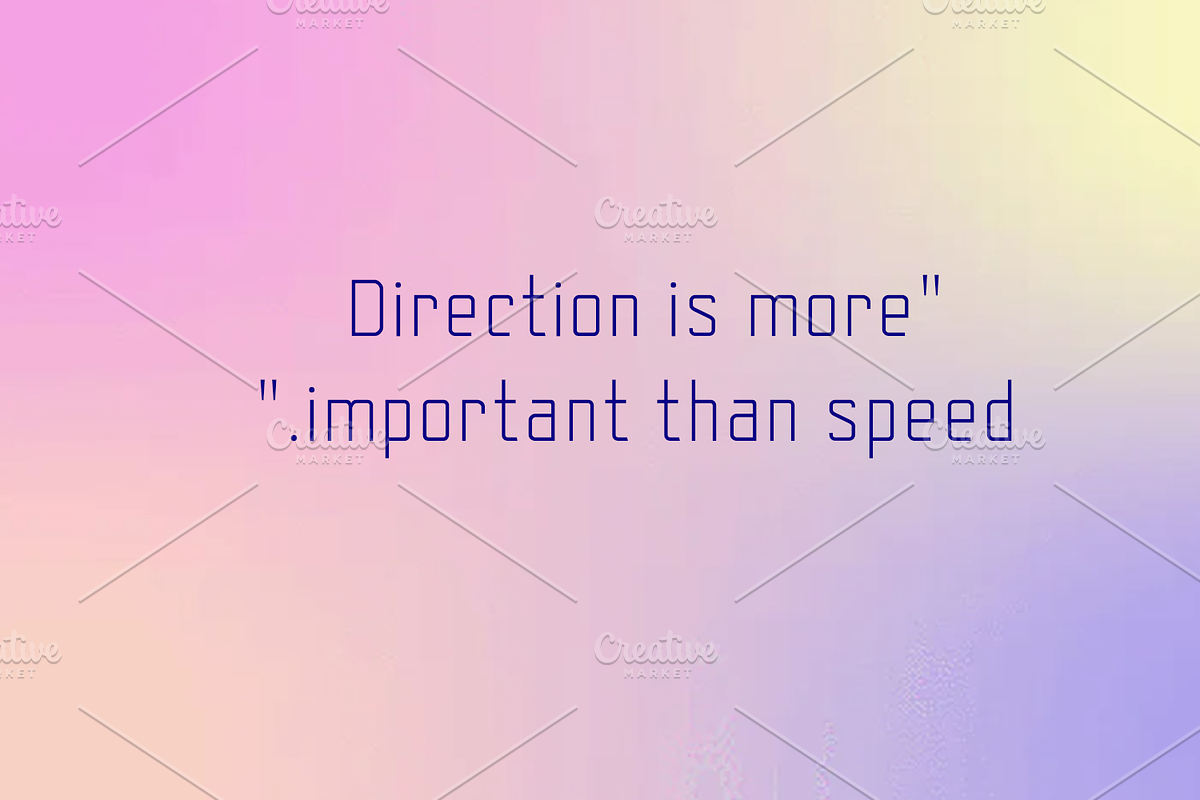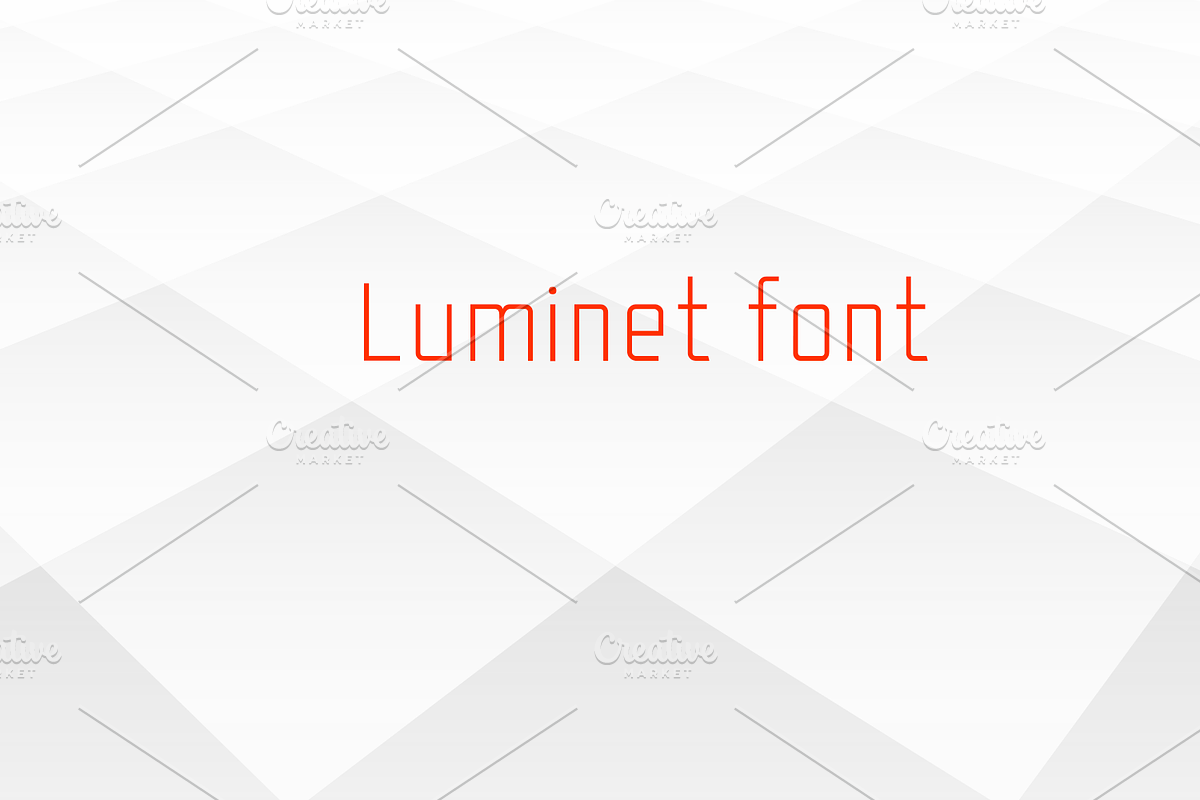
Meet Luminet—a font designed for clarity in a cluttered world. Modern, modular, and masterfully minimal, it adapts to any space with ease. From digital dashboards to lifestyle branding, it speaks with sleek precision. Unobtrusive yet unforgettable—because less truly is more. Luminet: Built for the future. Ready for now.